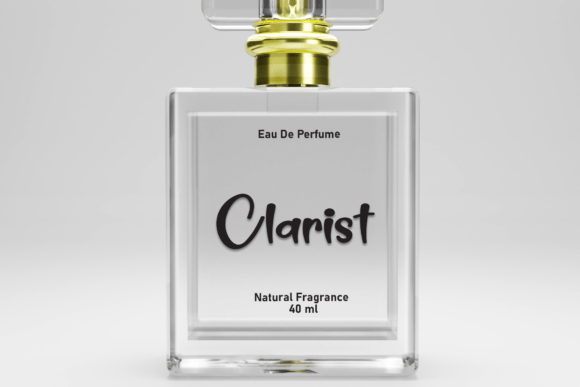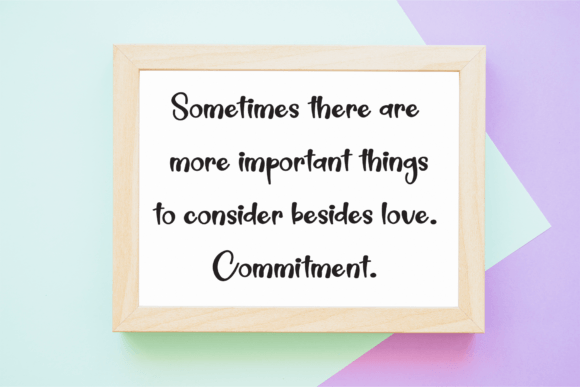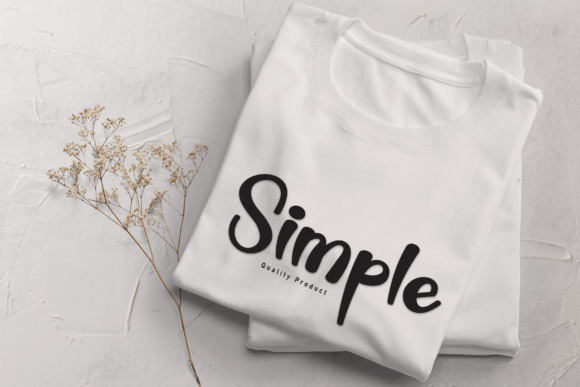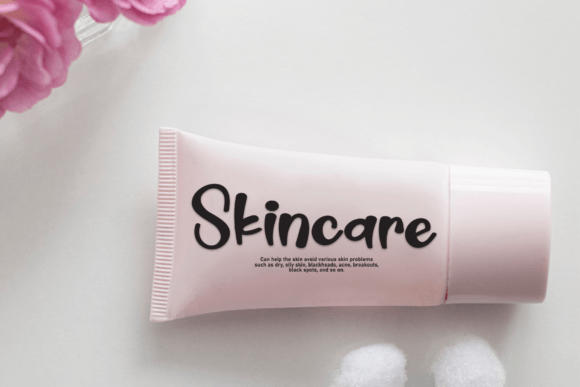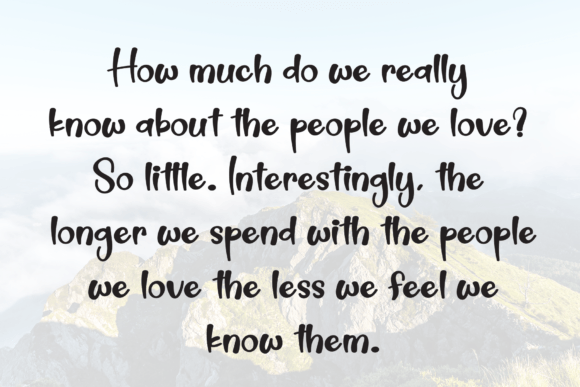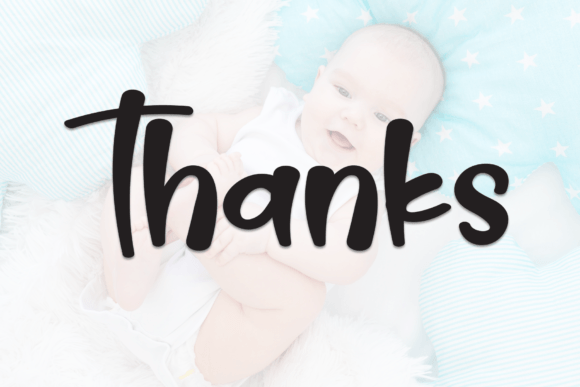
The Sweet Allure of the Babyish Font
Do you ever find yourself scribbling down a quote or a heartfelt message on a card, only to wish you had the perfect font to match the emotions behind the words? For designers, this is a common dilemma, especially when it comes to creating custom invitations, greeting cards, or logos that exude a personal touch.
This is where the Babyish Font comes in – a stylish and elegant script font that adds a touch of whimsy and sophistication to any design. Whether you’re crafting a wedding invitation, a thank you note, or a business card, Babyish Font is the perfect choice to give your design a handwritten feel.
As a valuable addition to any designer’s toolkit, Babyish Font offers endless possibilities for creative expression. Its versatility and unique charm make it an essential element for any project that requires a touch of elegance and personality.
Babyish Font Key Features
- Font Size: The font family includes 6 font weights, ranging from Light to Black, allowing for a wide range of typographic expressions.
- Unique Characteristics: The font features a distinctive, playful style with rounded edges and subtle imperfections, giving it a childlike charm.
- Language Support: Babyish Font includes support for a wide range of languages, including Latin, Cyrillic, and Greek scripts.
- Kerning and Ligatures: The font includes advanced kerning and ligature pairs, ensuring smooth and even text rendering.
Babyish Font Review
Overall, I was a bit torn with the Babyish Font. While it has some charming qualities, it also has some notable drawbacks. Let’s start with what works well: ✨ The font’s playful and whimsical feel is perfect for projects that require a touch of innocence and youthfulness. The rounded edges and soft curves make it a great choice for designs targeting younger audiences or families. ✨ The font’s versatility also allows for a wide range of applications, from children’s books to social media graphics.
However, there are also some limitations to consider: ⚠️ The font’s readability can be a concern in certain situations. The thin lines and rounded edges can make it difficult to read, especially at smaller sizes or in environments with low contrast. ⚠️ Additionally, the font’s overall aesthetic may not be suitable for all projects, particularly those requiring a more professional or serious tone.
Pros:
- Playful and whimsical feel
- Perfect for projects targeting younger audiences
- Highly versatile
Cons:
- Readability can be a concern
- Not suitable for all project types
Tips for Getting the Most Out of Babyish Font
Use Babyish Font for creative and playful designs, such as children’s books, nursery decorations, or social media posts for kids’ brands.
Combine Babyish Font with other whimsical fonts and graphics to create a unique and eye-catching design.
Experiment with different font sizes, colors, and alignment to achieve the desired level of playfulness and sophistication.
Babyish Font is commonly used for:
Children’s book covers and illustrations
Alternatives to “Babyish Font” for Designers
Lato is a modern sans-serif font designed by Łukasz Dziedzic. It’s suitable for use in headings and body text where a clean and elegant look is desired. Lato is more versatile and professional than Babyish Font, making it ideal for corporate and editorial designs.
Alegreya is a serif font designed by Juan Pablo del Peral. It’s perfect for use in books, magazines, and other publications where a classic and sophisticated look is needed. Alegreya is more formal and elegant than Babyish Font, making it suitable for academic and literary designs.